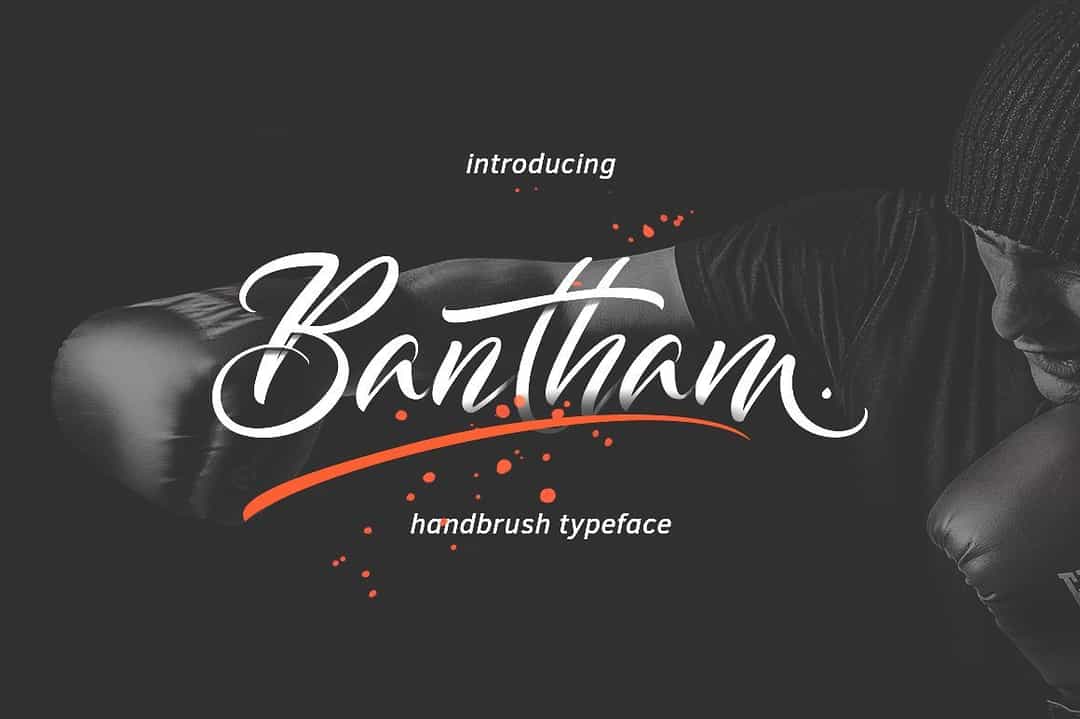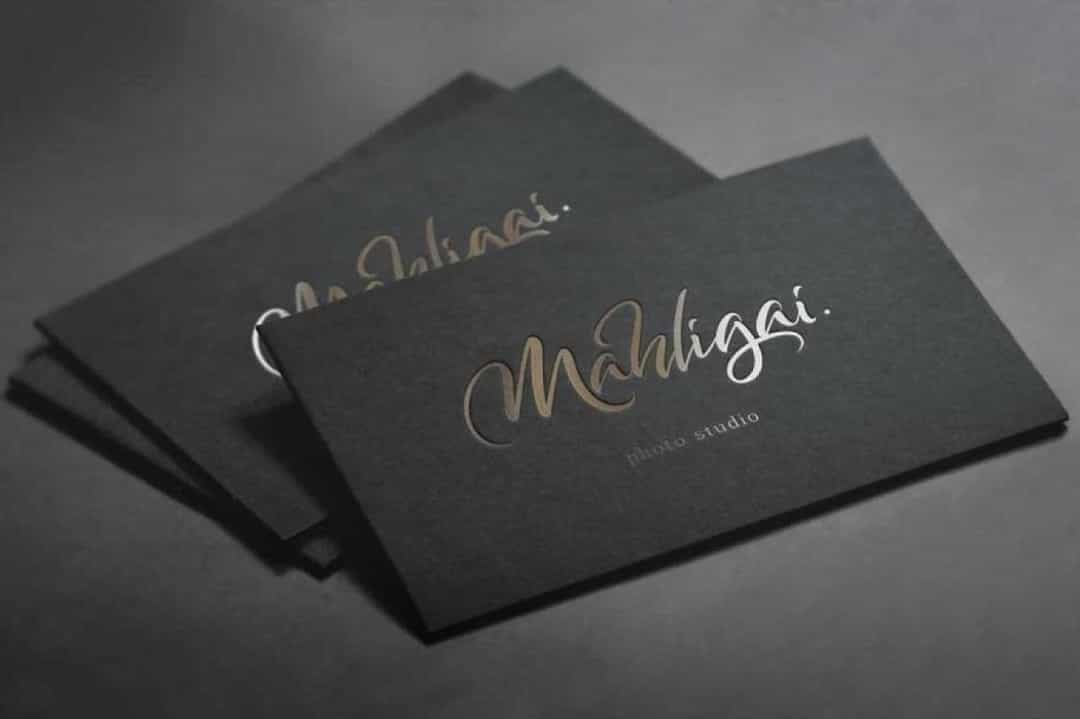
Welcome to my new typeface: This one is called Bantham Typeface – the display handbrush lettering, it is easy to use and it helps to create beautiful lettering in a matter of minutes; you just type your words and see the result.